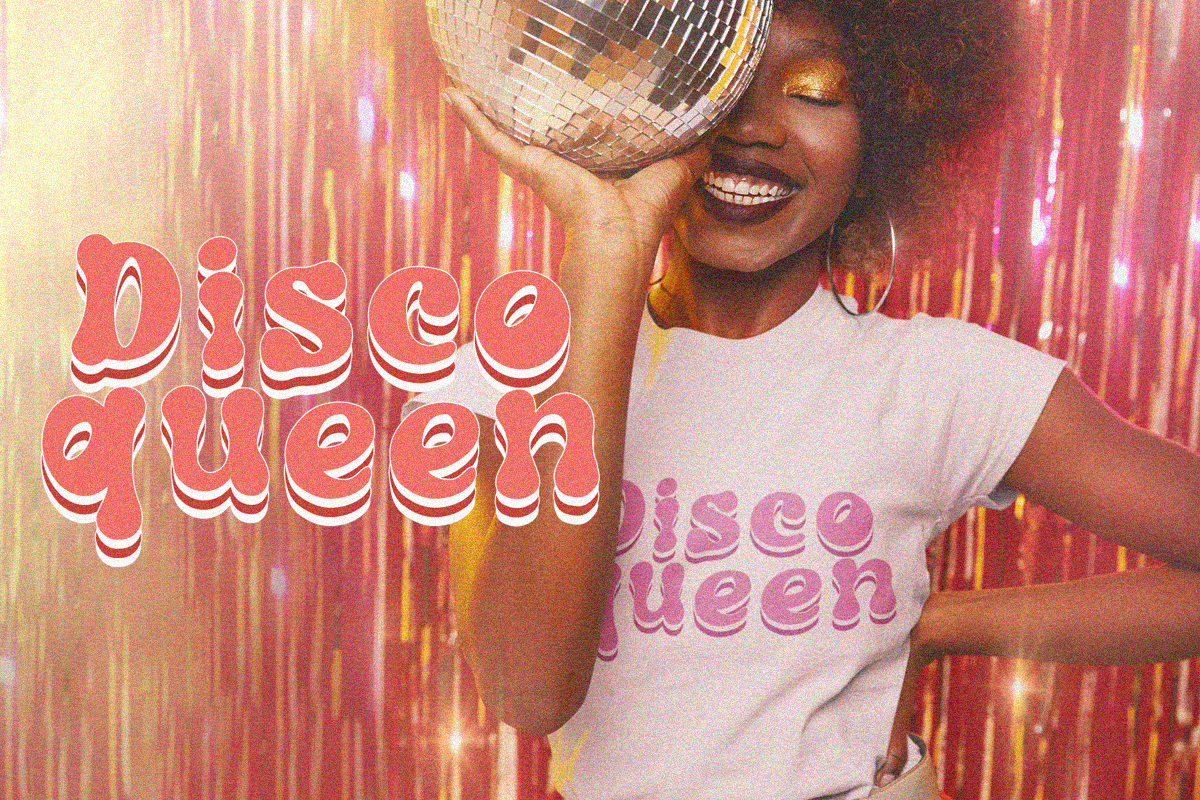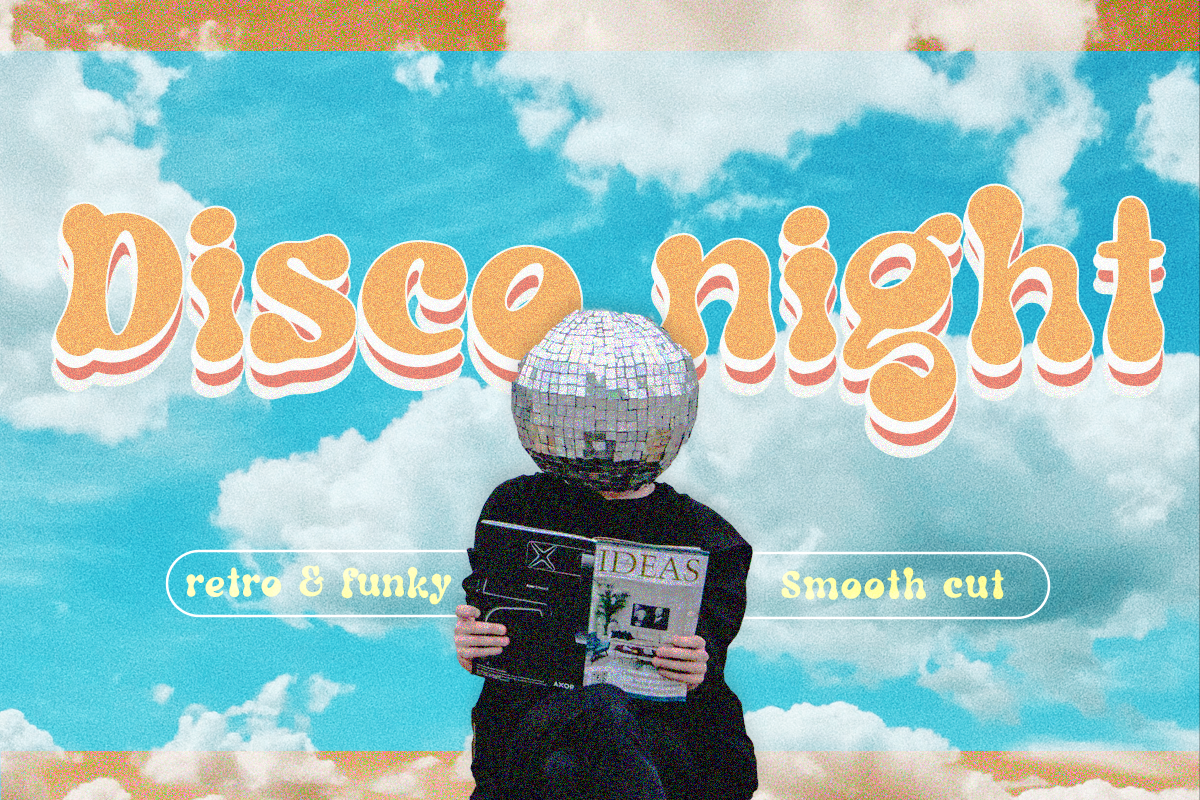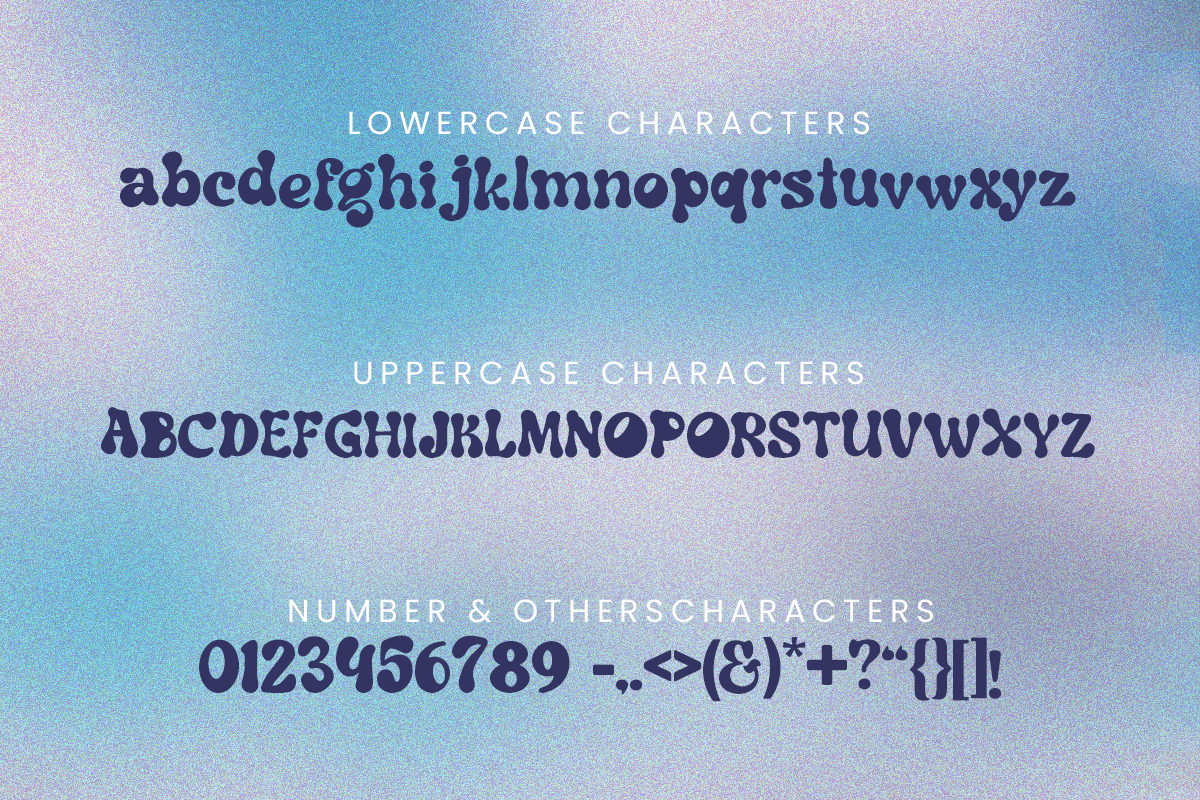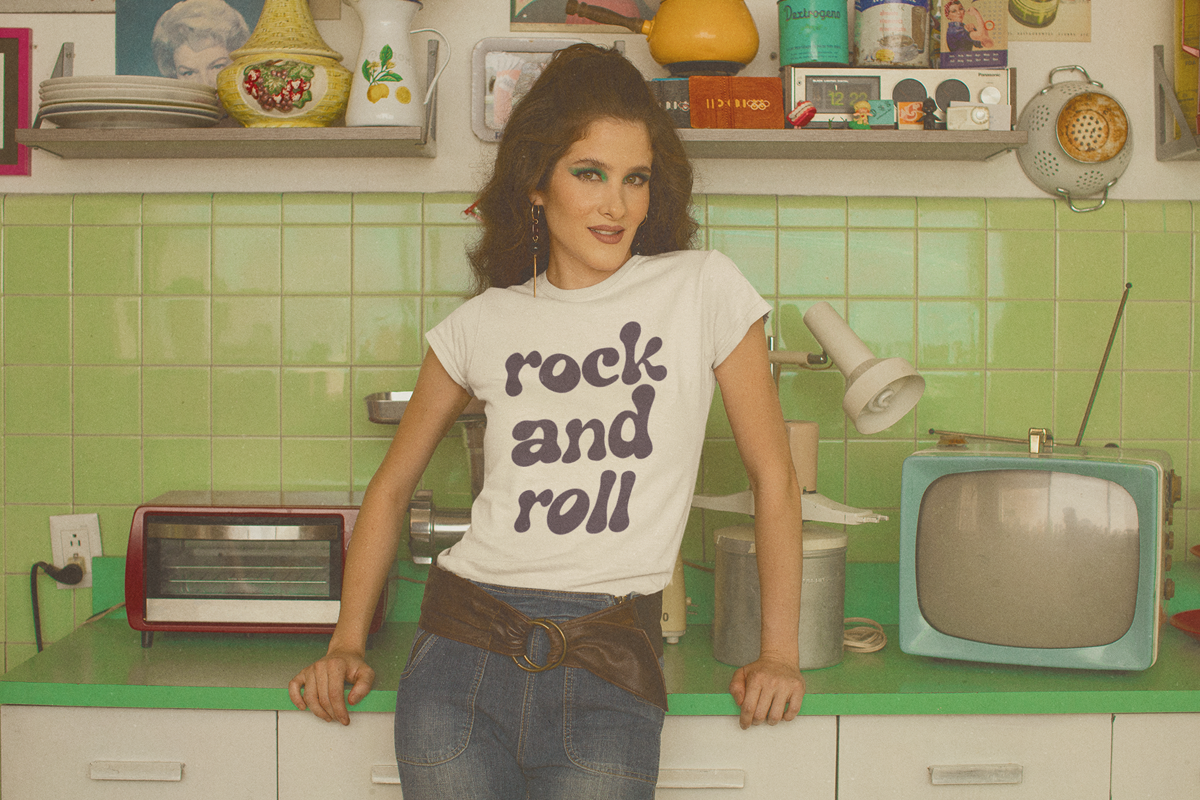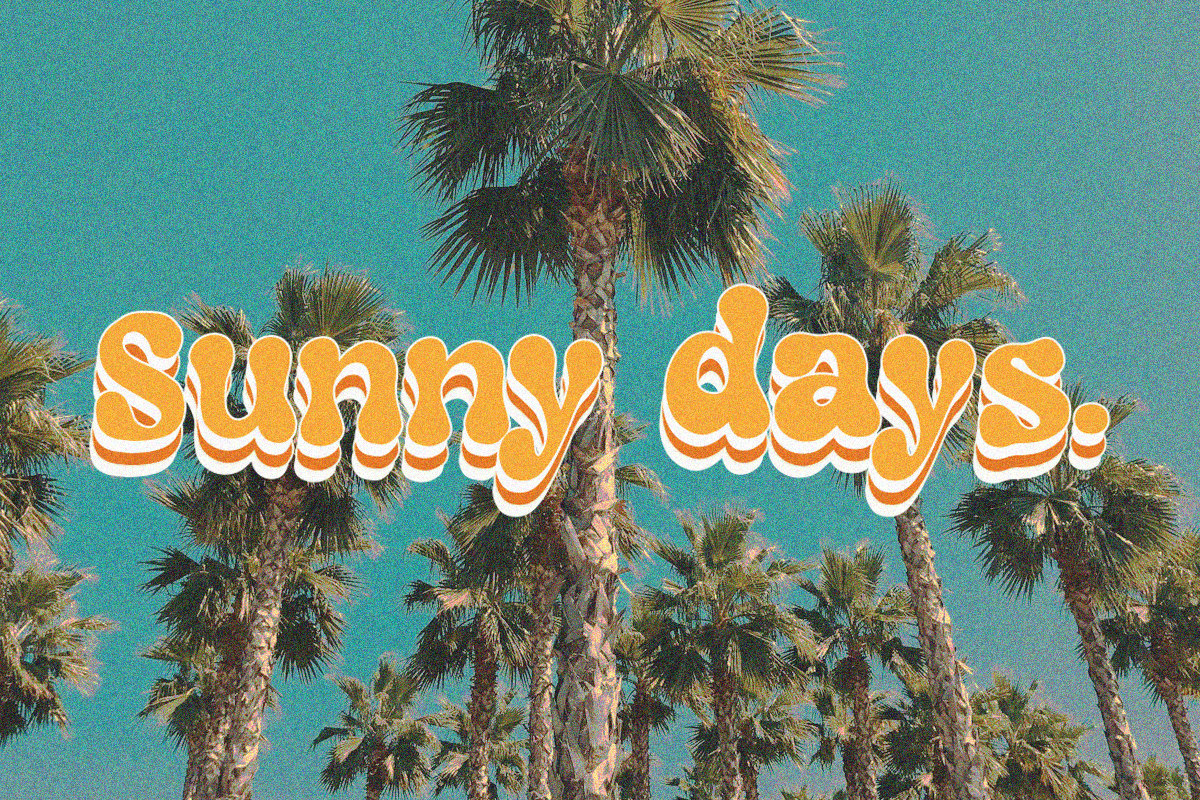
Disco Night, Retro Font
DISCO NIGHT FONT
This modern retro font is perfect for any design! It is easy to cut on Cricut and silhouette machines, ideal for working with any sublimation projects.
It has a 70s vibe that goes great with t-shirt designs, tumblers, tote bags, and more!